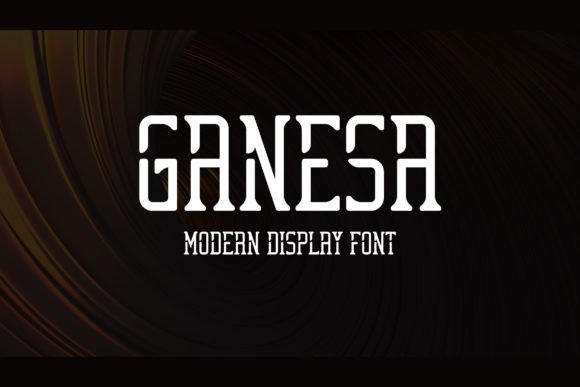
In a realm where self-expression knows no bounds, where creativity explodes like a fireworks display, Ganesa unveils its stunning presence – a modern, clean, and eye-catching display font that ignites imagination and transforms words into mesmerizing visual masterpieces.
Gaze upon Ganesa, a font that captivates the eyes like a siren's song, beckoning you to explore its infinite possibilities. Its vibrant aura dances across posters, cards, book titles, headlines, news, banners, and flyers, leaving a trail of beauty and enchantment. With Ganesa as your creative ally, your designs will transcend the ordinary and soar to breathtaking heights.
Enter a world where letters become art, where every stroke tells a story, and every word carries a hidden melody. Ganesa's meticulously crafted characters intertwine harmoniously, creating an aesthetic tapestry that mesmerizes and inspires. Whether you're a fervent tattoo artist, an ardent graphic designer, or a visionary entrepreneur, Ganesa is your muse, your conduit to greatness.
Dare to unleash your creativity's full potential. Journey into the depths of your imagination and unearth designs that radiate with originality and flair. Ganesa's versatile essence effortlessly adapts to any project, like a chameleon seamlessly blending into its surroundings. Let your ideas flow freely, knowing that Ganesa will effortlessly transform them into captivating works of art.
Ignite your passion and delve into the world of Ganesa. With this remarkable font as your companion, you'll discover a newfound joy in design, a boundless realm where possibilities are endless. Embrace the allure of Ganesa and watch as your creative dreams take flight.